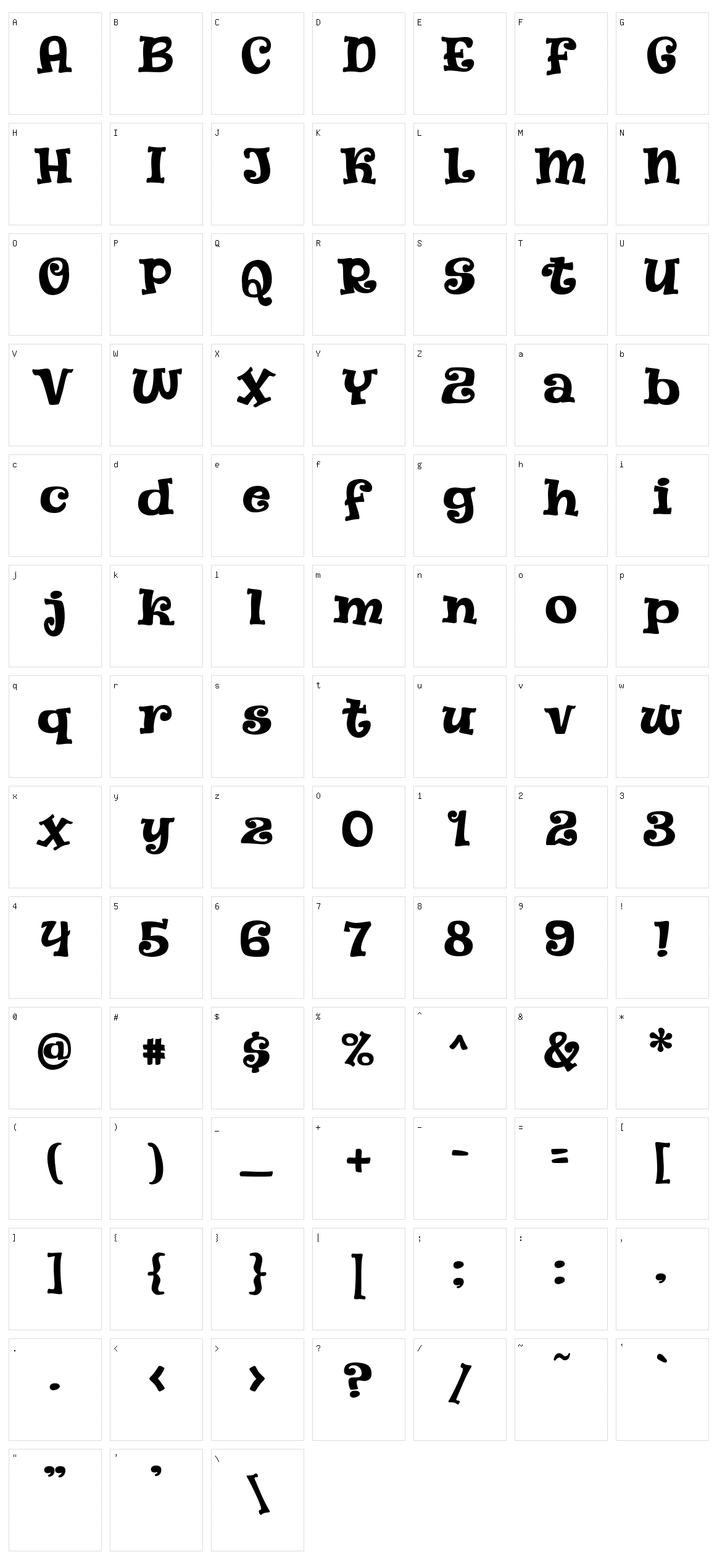
The free font Pancis is carefully designed by Nico Muslib, showcasing a thoughtful balance of creativity and usability and falls under the Groovy font style. When you download the ZIP file, it contains only 80.13 KB of font files, making it lightweight and quick to download. Please review the license details below to understand permitted usage and distribution rights. If license information is not available, we recommend using this font for personal projects only or contacting the author directly for commercial usage permissions.